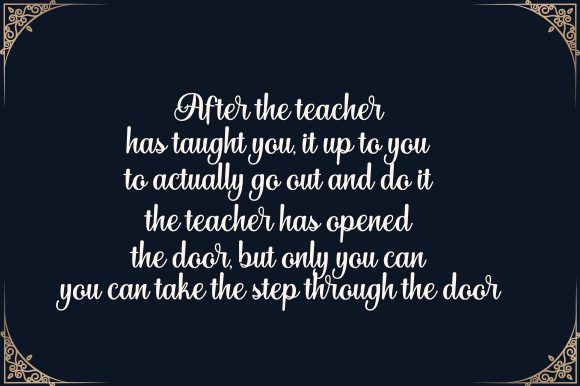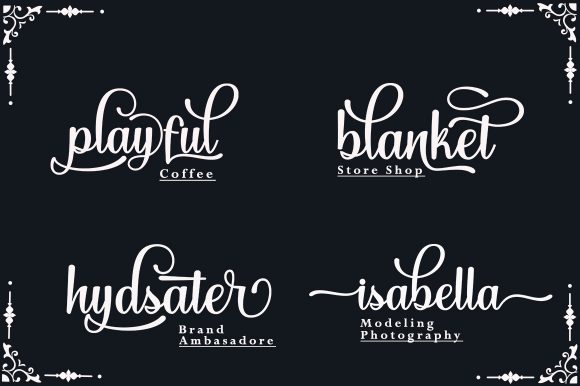
Ghosting Font
db-ku.com - Script & Handwritten -- Ghosting is an assertive and distinct script font. Expertly designed to make your creation look out of this world, this font will look gorgeous on a variety of ideas. This font is PUA encoded which means you can access all of the glyphs and swashes with ease!